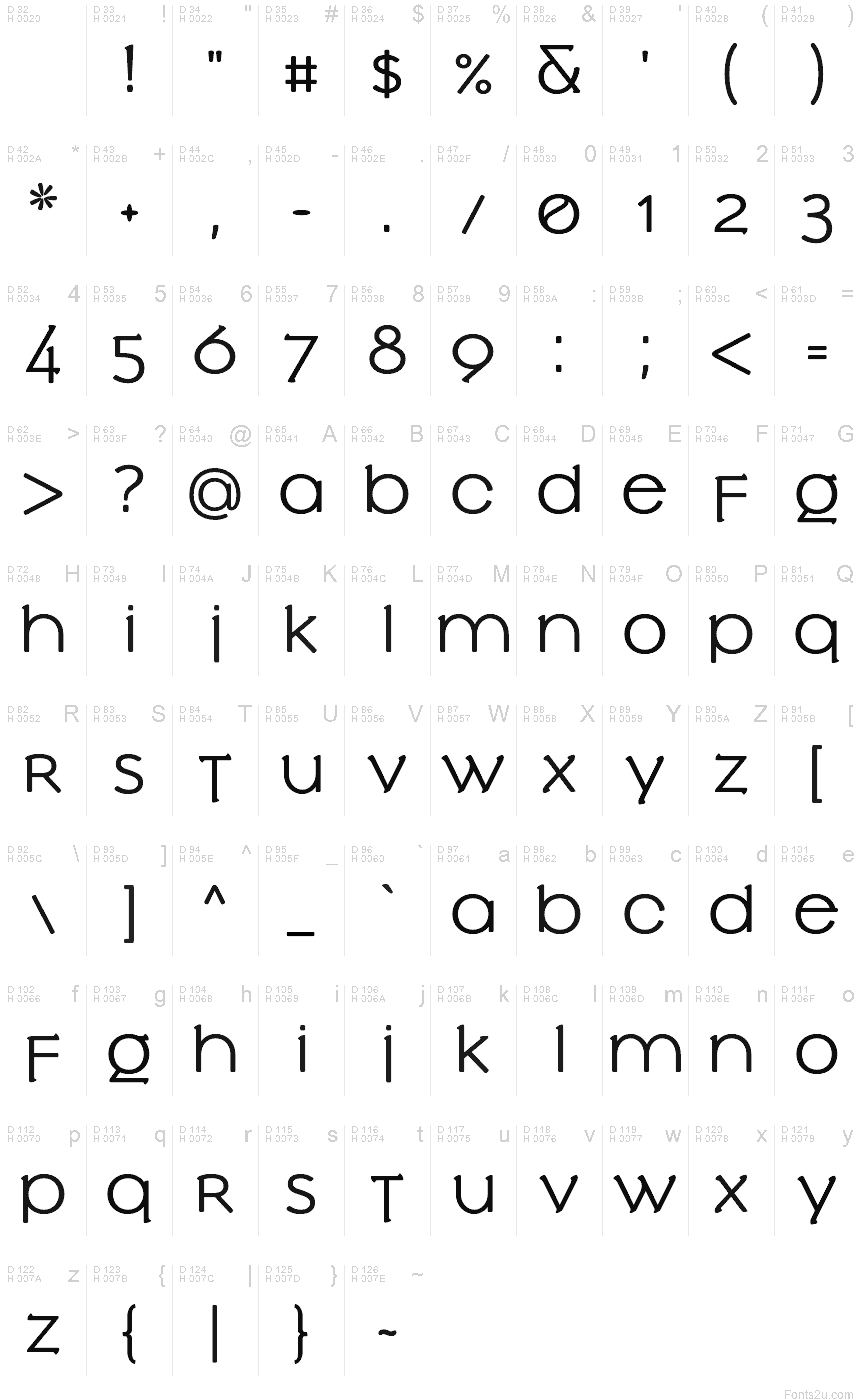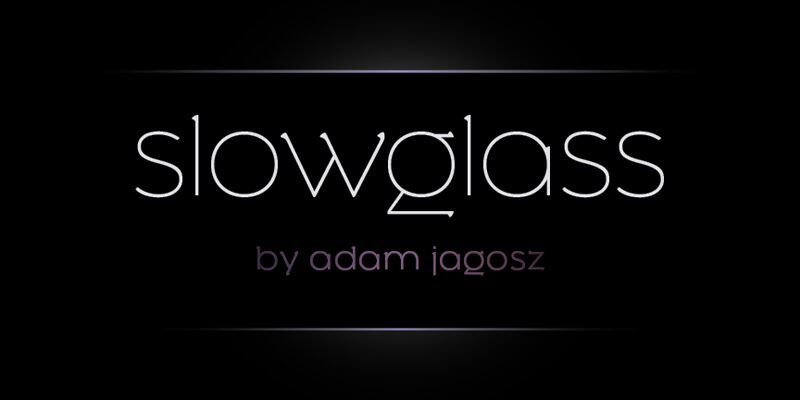
Slowglass Bold
Slowglass is a futuristic geometric display face with a retro twist. It features full punctuation, a broad set of diacritics, localization features for Catalan and the Turkic languages, and four sets of figures, old-style and lining, tabular and proportional.
This design is unicase, with most of the letters taking the form traditionally considered lowercase. Most of the punctuation, as well as the lining numerals, are aligned with the x-height.